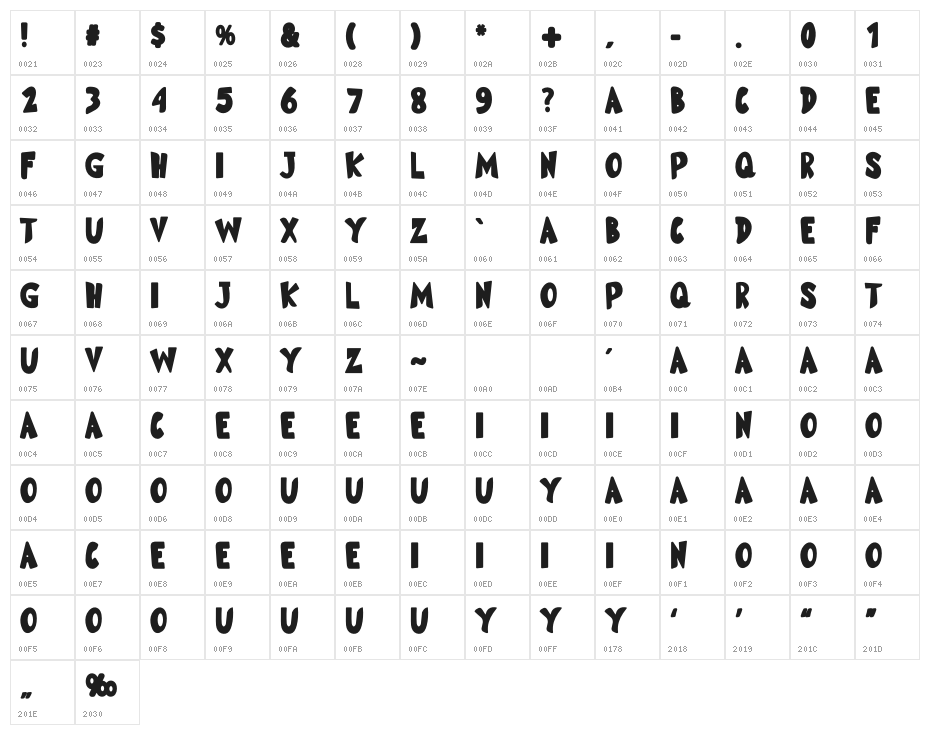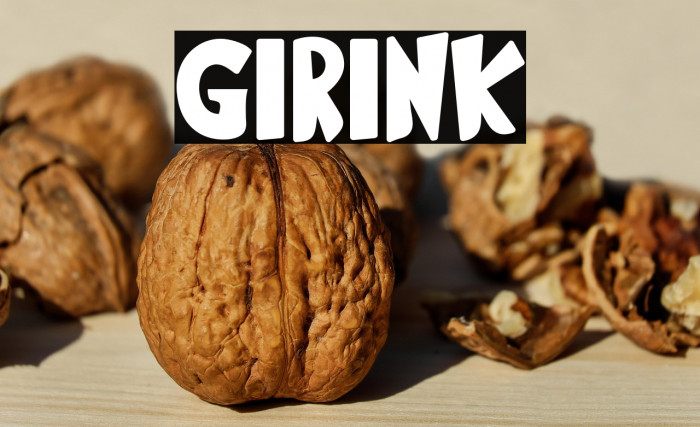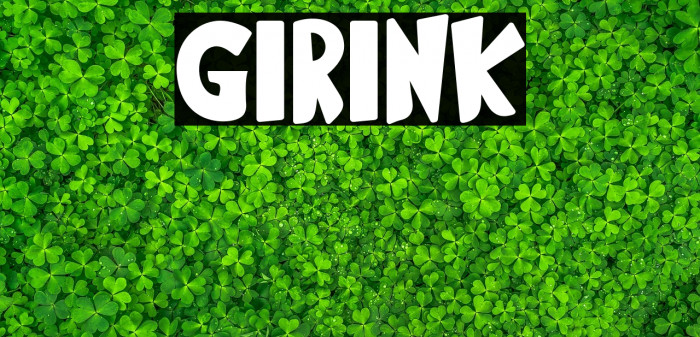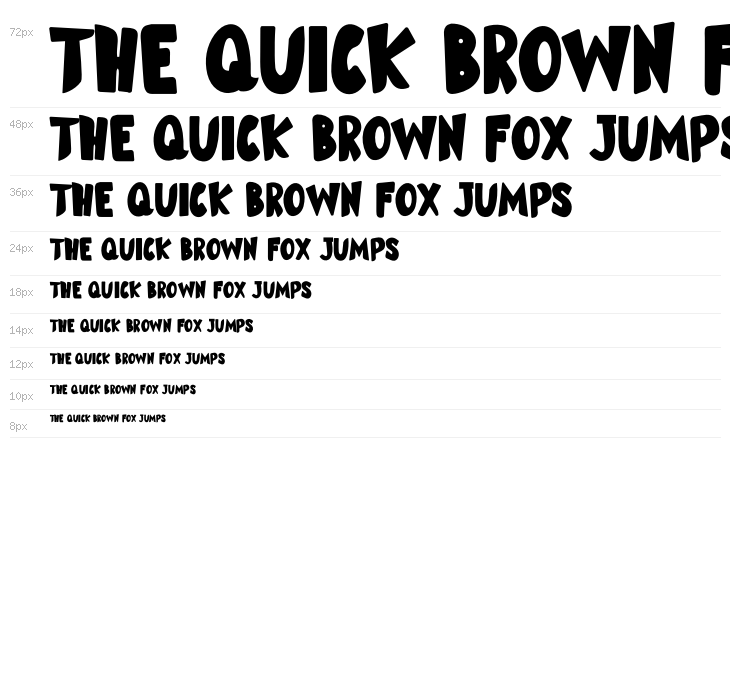
Girink Font
Girink Description
A playful, bold display typeface with irregular, hand-drawn letterforms and exaggerated proportions. The characters have a cartoonish, informal feel, with rounded edges and varying stroke thickness, giving the font a lively and whimsical appearance.
| Overall Style | Playful, Cartoonish, Decorative |
| Use Case | Headlines, Posters, Logos, ChildrenΓ’β¬β’s materials |
| Proposed Projects | ChildrenΓ’β¬β’s books, comic titles, posters, party invitations, playful branding. |